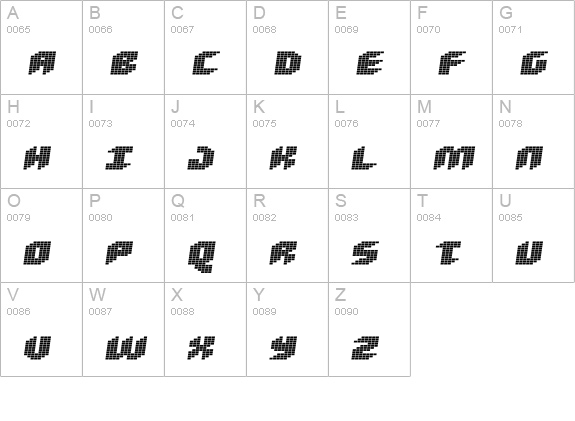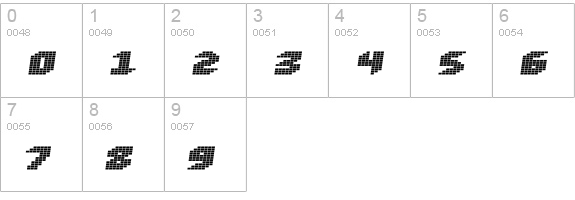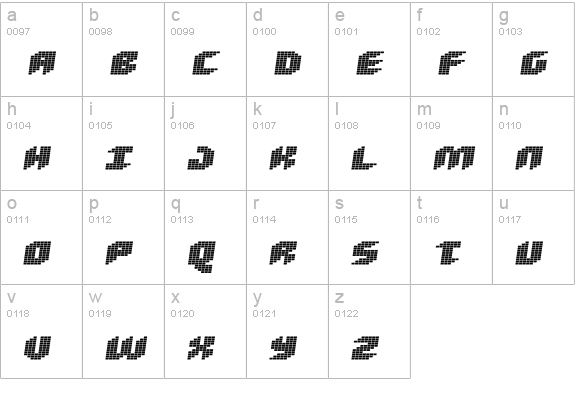
Loud noise Skew Font Details
Introducing the captivating Loud Noise Skew font, a dynamic typeface that exudes energy and boldness. With its unique skew design, this font is perfect for making a statement and grabbing attention in various design projects. The sharp angles and loud presence of each character make Loud Noise Skew font a standout choice for posters, headlines, branding materials, and more. What's even better is that Loud Noise Skew font is available for **free** download at FontsMarket.com. Take advantage of this opportunity to add a touch of edginess and excitement to your creations without breaking the bank. Don't miss out on this fantastic resource for your design needs!